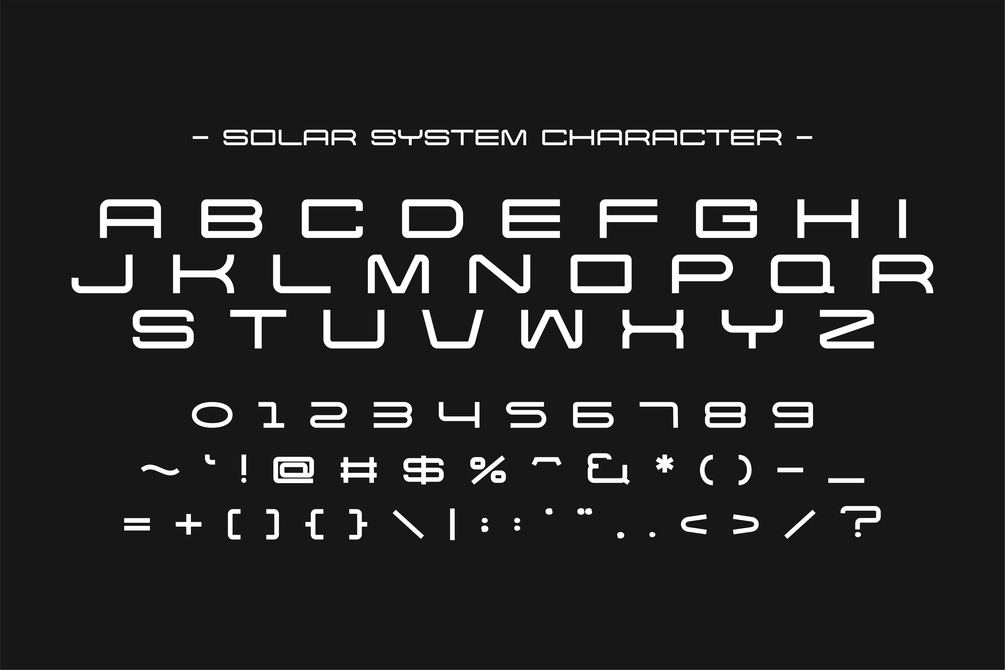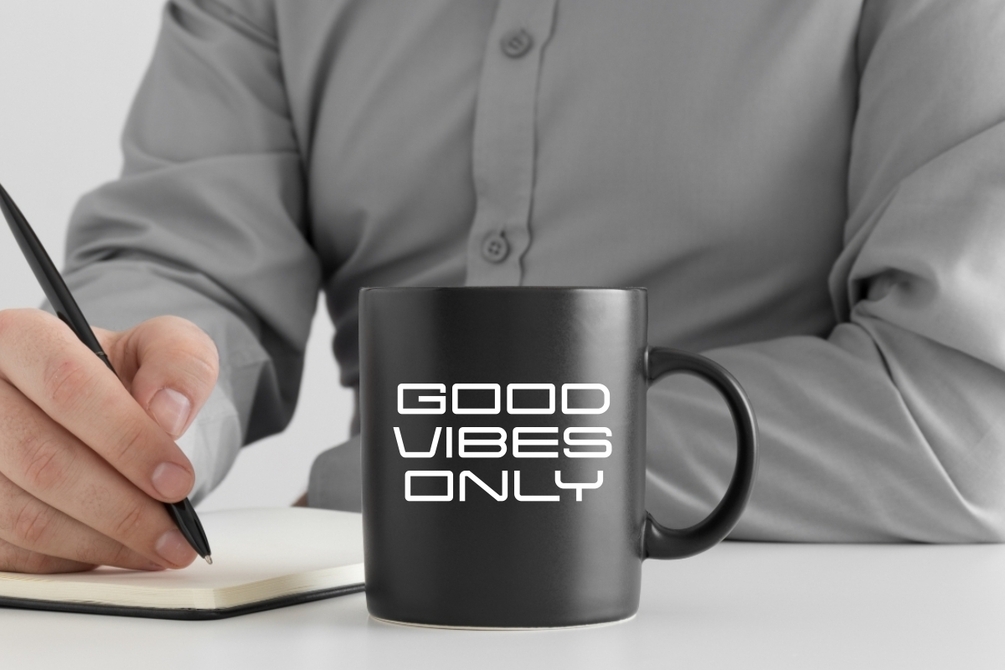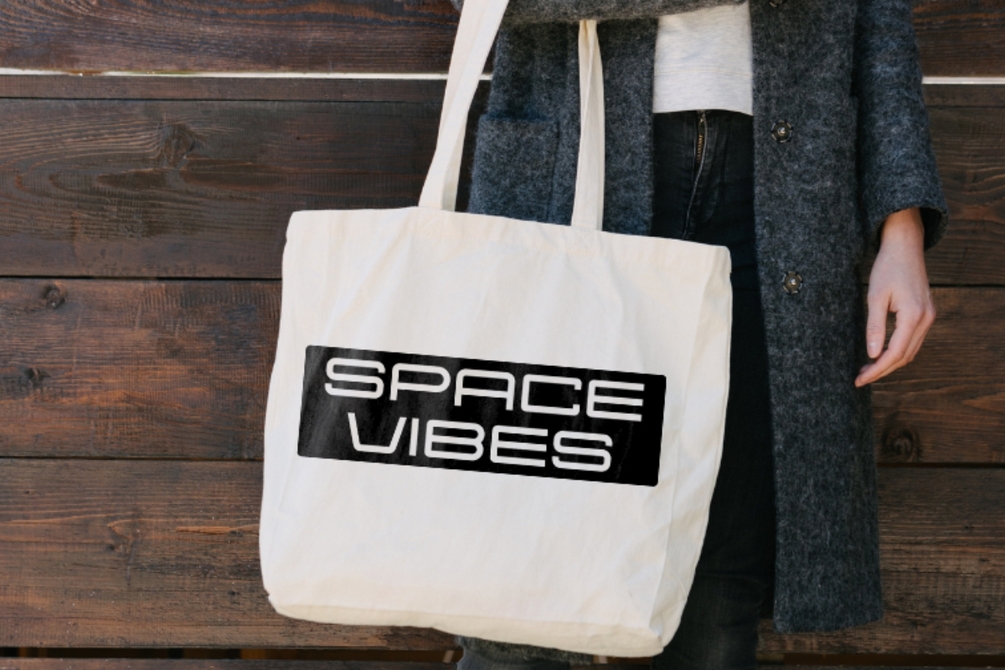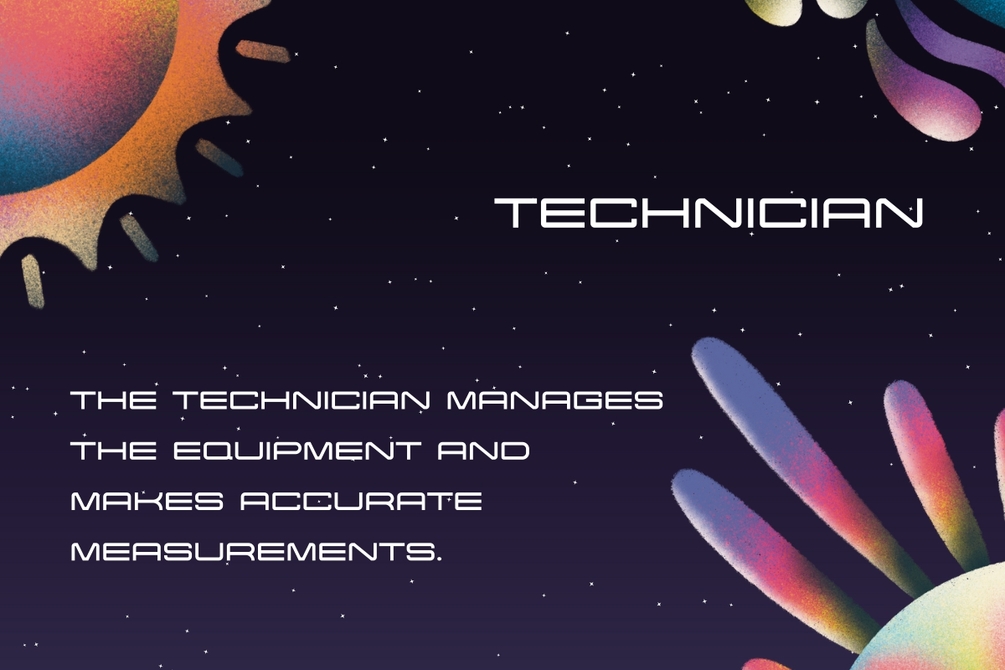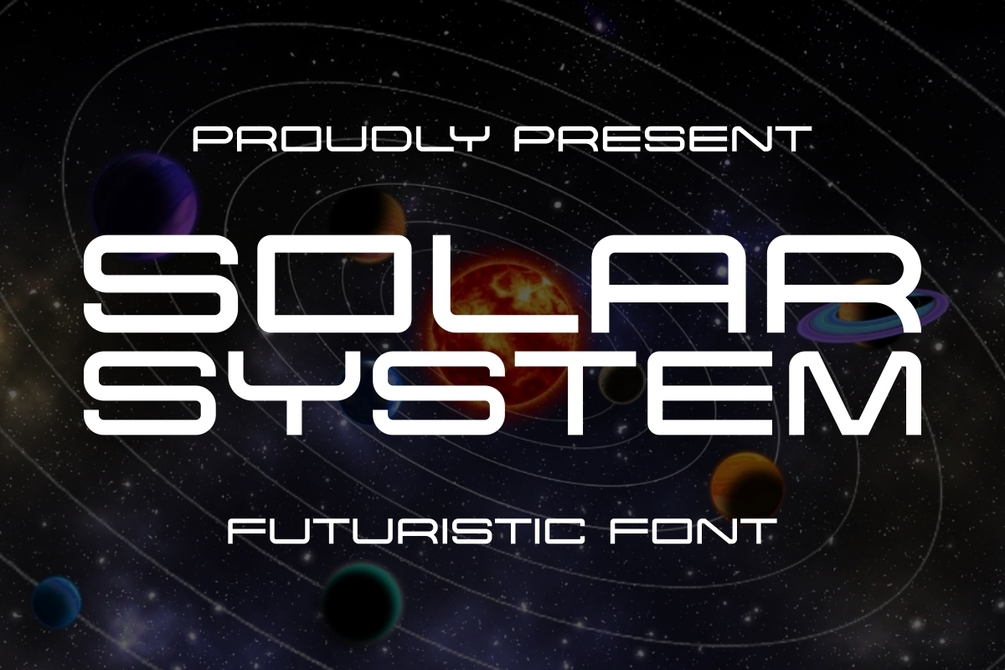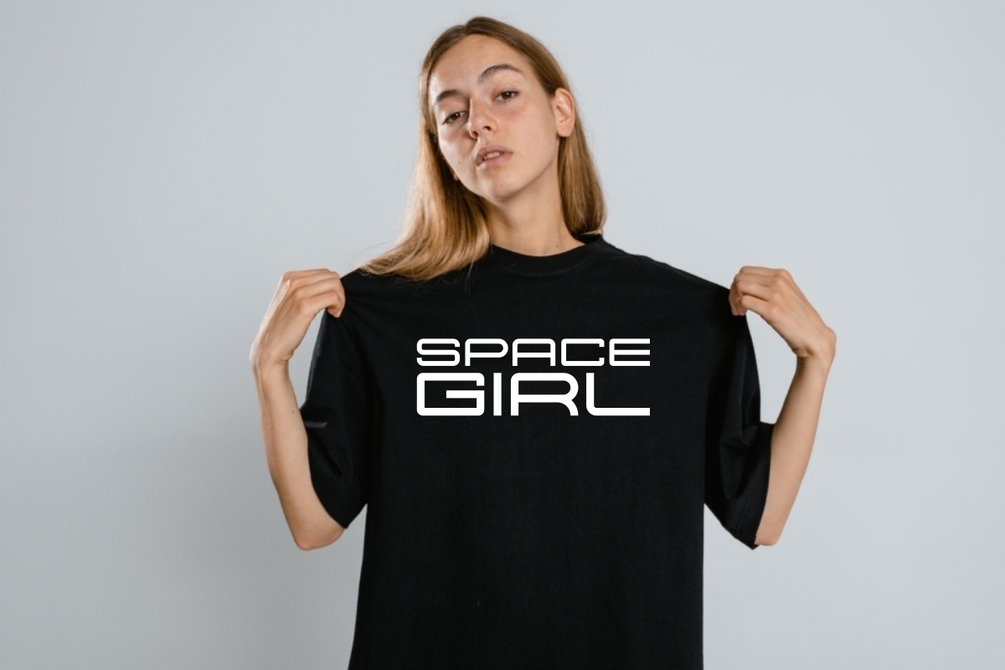
Solar System - Futuristic Font
Solar System is a futuristic space and display font that takes inspiration from the grandeur of the cosmos. With its wide and classy space monoline style, this font brings a touch of sophistication to your designs. Perfect for mockup designs including t-shirts, wall art, and posters. "Solar System" offers versatility and charm. Ideal for school-going children who appreciate cute and unique designs, this font adds a playful yet stylish element to any project.